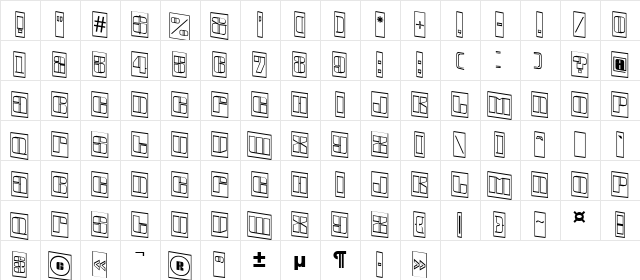
a_GlobusCmOtlSpDn Regular
Design Context for a_GlobusCmOtlSpDn Typeface
a_GlobusCmOtlSpDn is a composed and adaptable typeface that performs quietly and consistently across a wide range of design contexts.